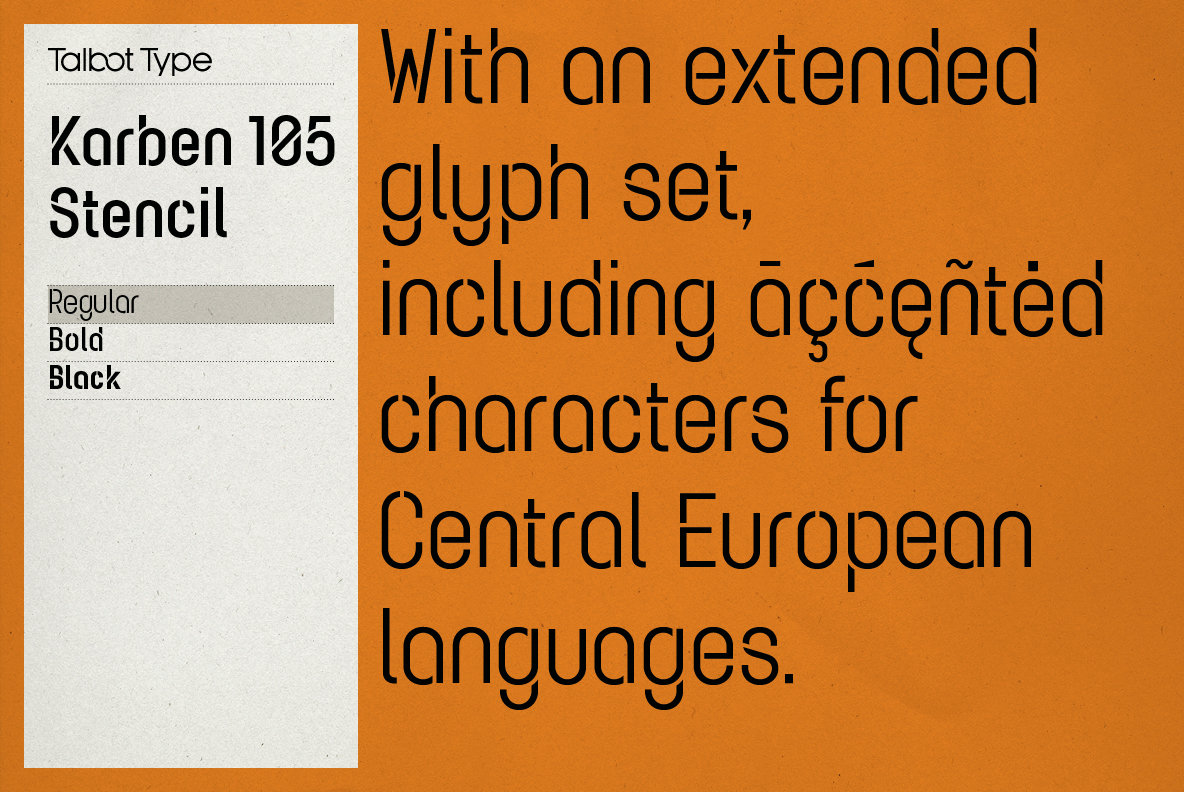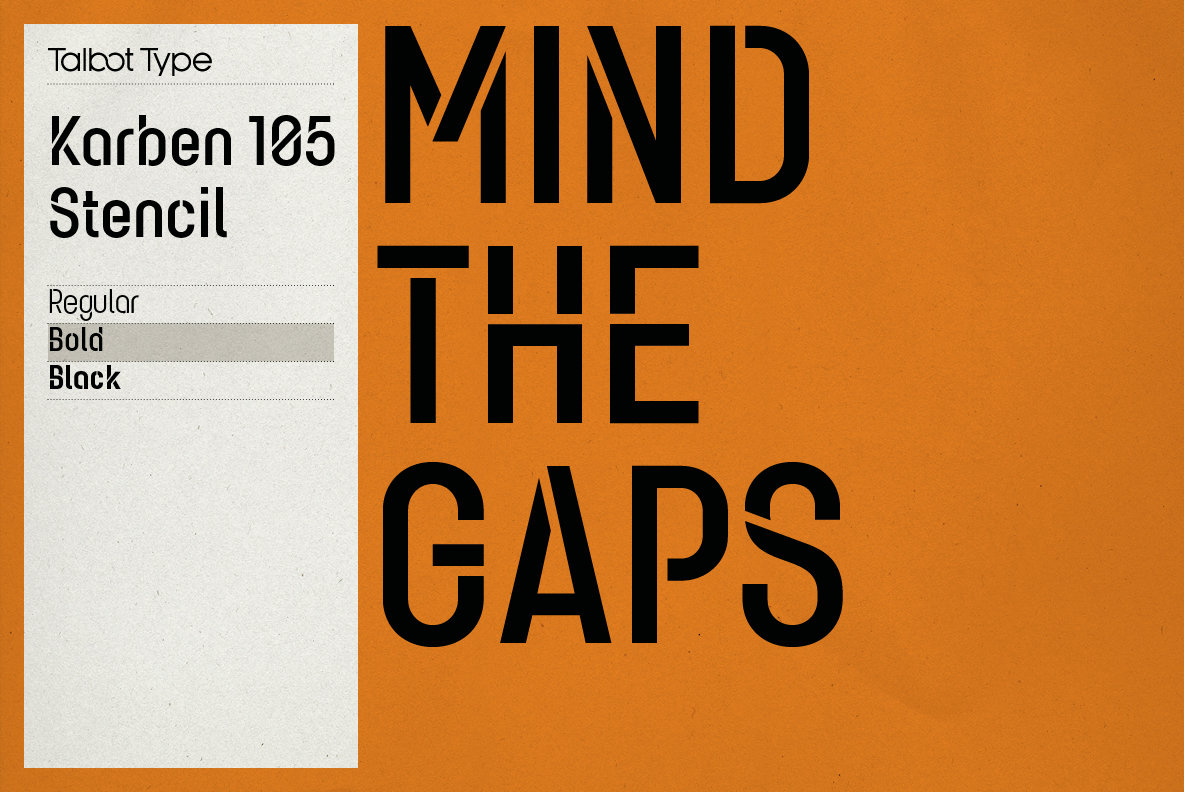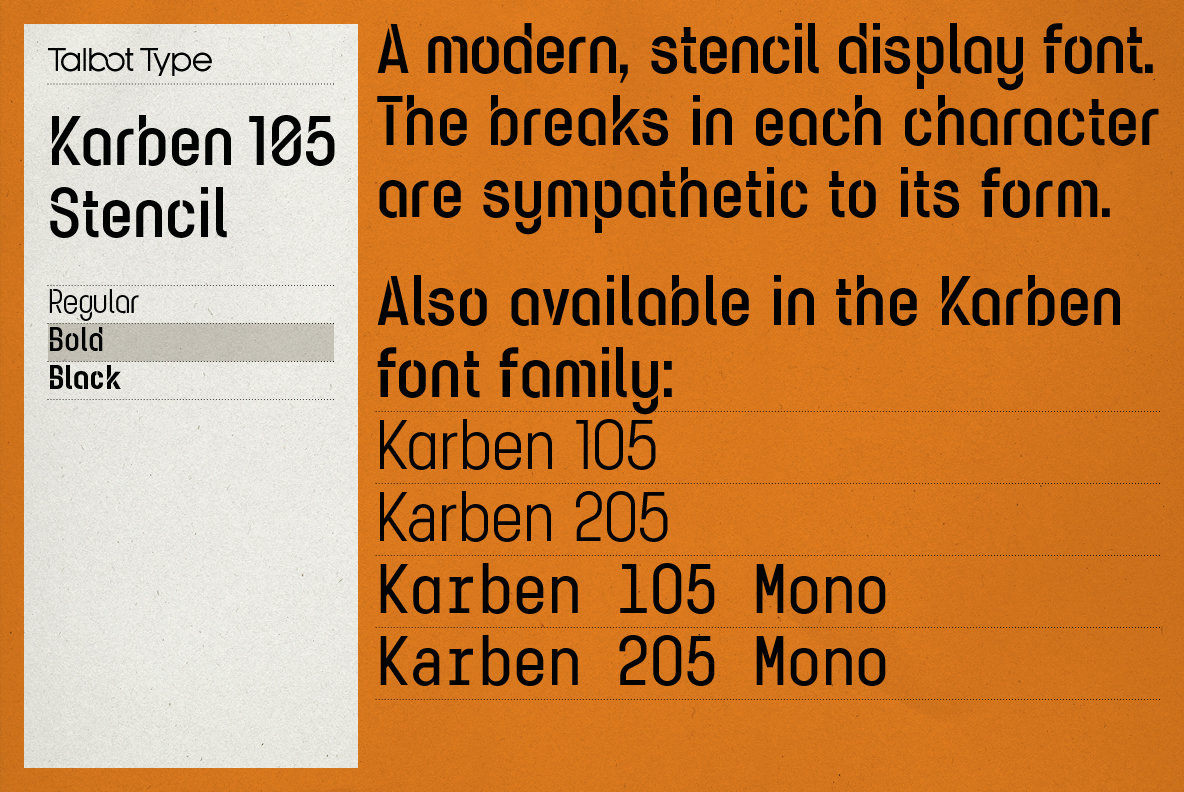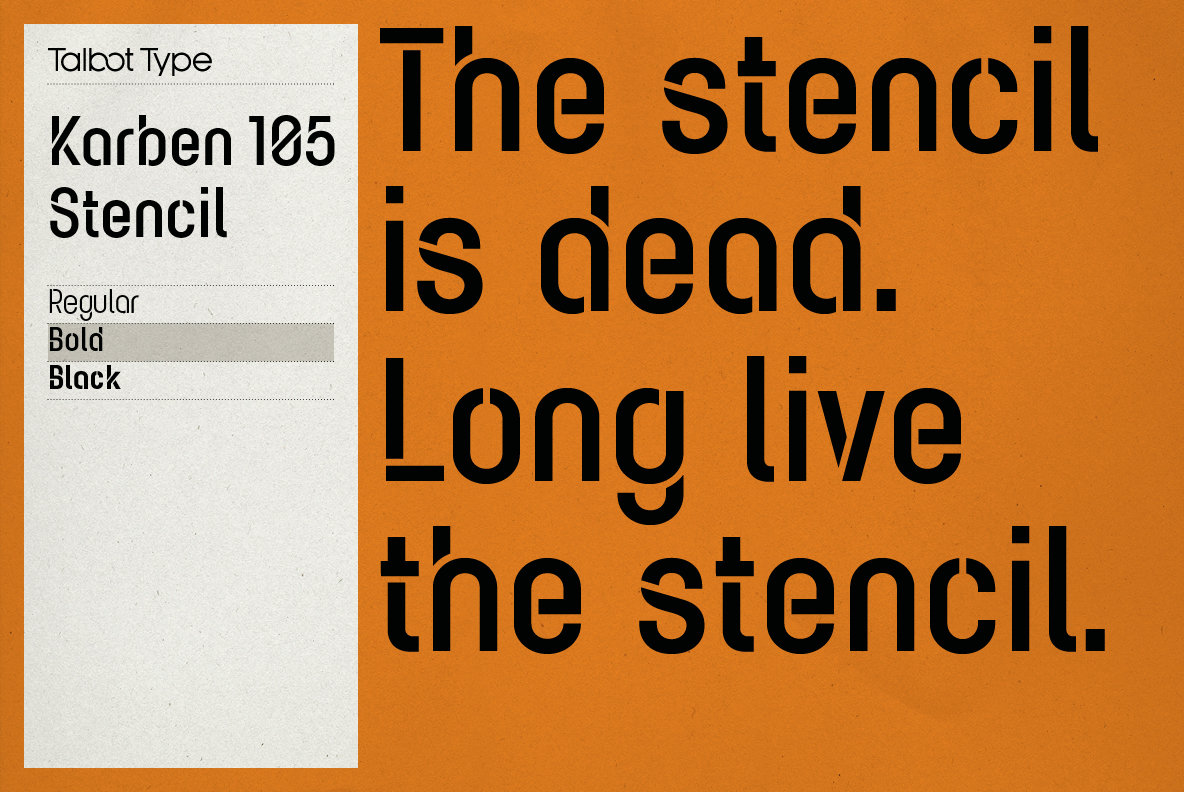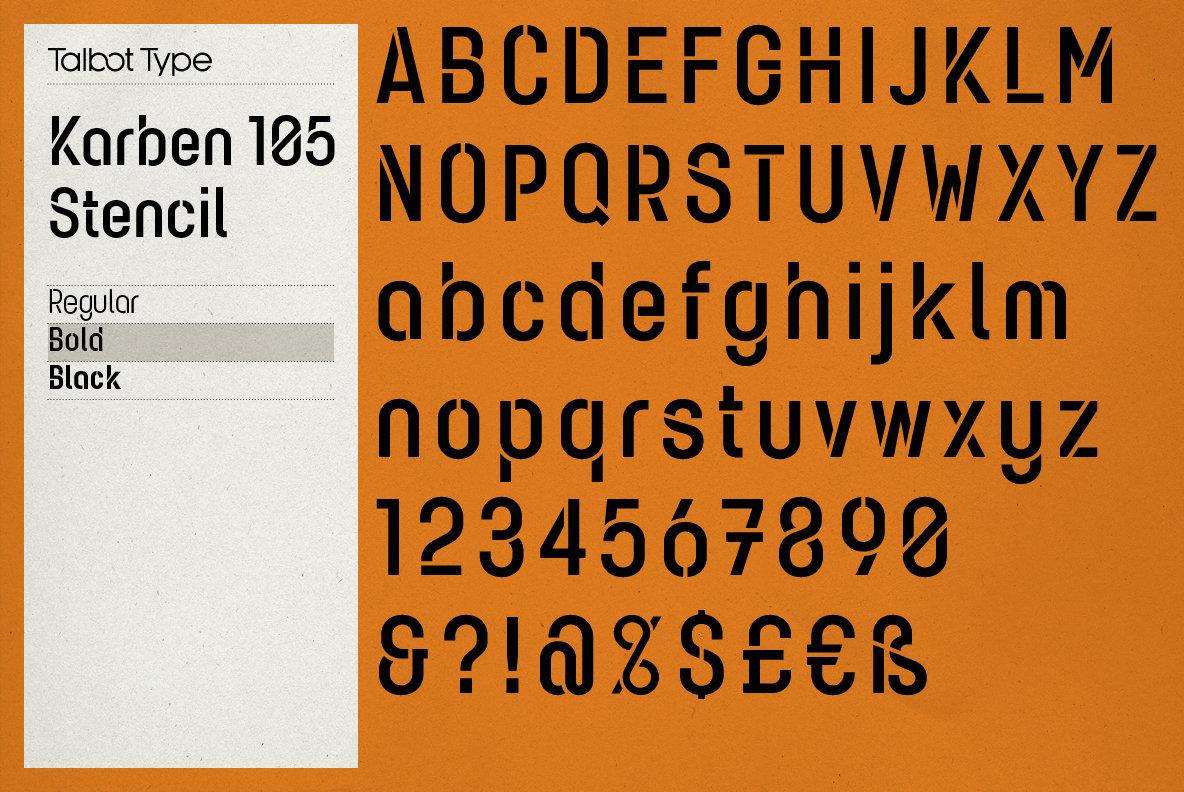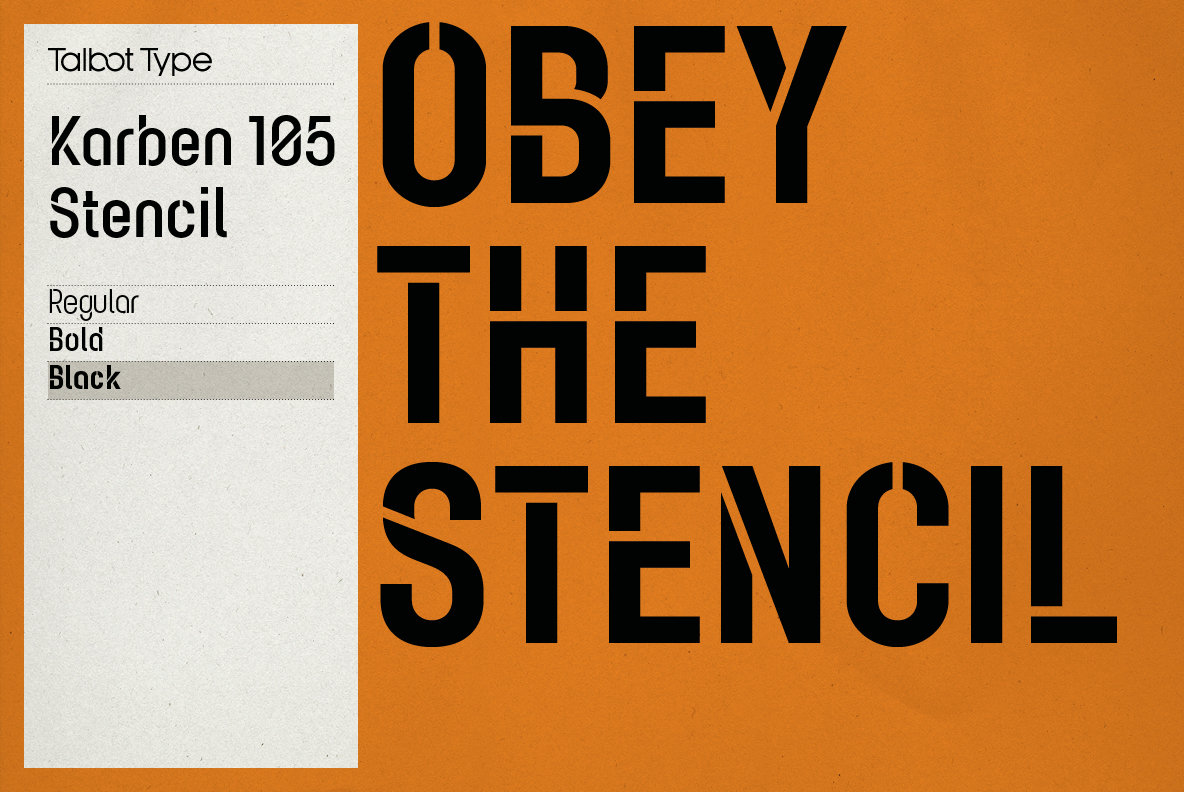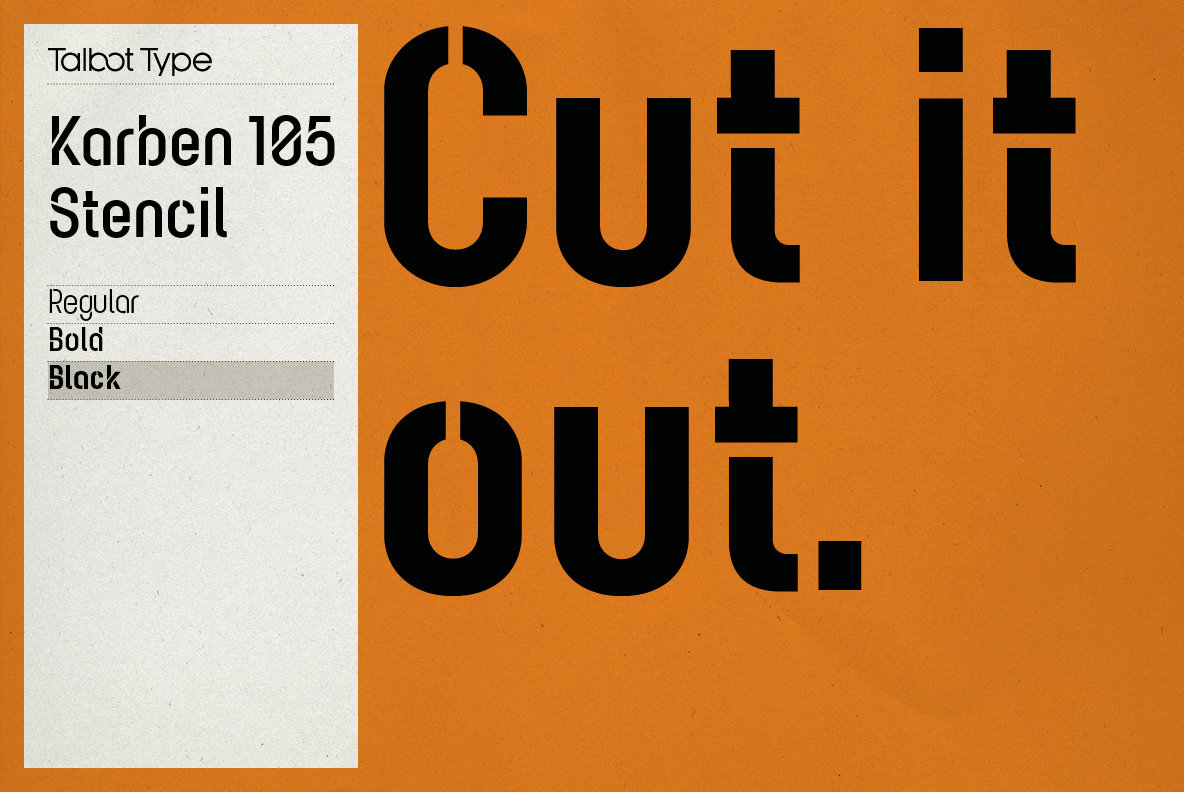
Karben 105 Stencil is a contemporary stencil font. The stencil breaks in the letters are applied in a way that is sensitive to the forms of the character in pursuit of a more elegant stencil. Karben 105 Stencil is available in a family of three weights. Karben 105 Stencil is closely related to Karben 105 and Karben 205.
All of the Karben fonts feature an extended character set, including accented characters for Central European languages.
Adrian Talbot established Talbot Type in 2012. His typefaces have been adopted widely, notable clients include the BBC, The British National Health Service and the Victorian State Government in Australia.Talbot Type fonts aspire to be timeless designs, valid now and in the future. They are inspired by...